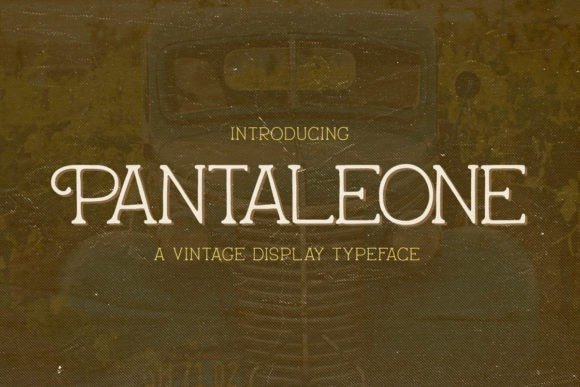
Pantaleone Serif Font is a typeface inspired by vintage metal sign. It’s designed and shared by Rillatype. Pantaleone makes your job of making vintage designs easier, this font is suitable for vintage design uses, especially for packaging, branding, quotes, etc.